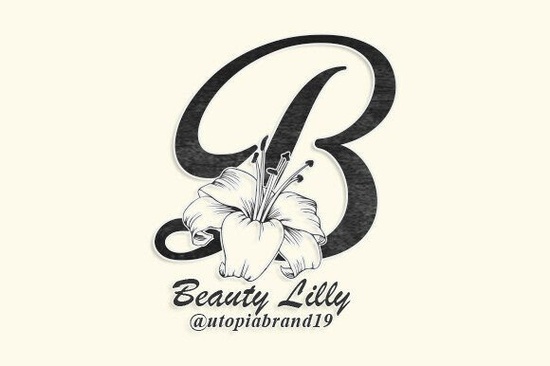
Beauty Lilly Font is a sophisticated script typeface with flowing, hand-drawn letterforms that feel both elegant and organic. It's designed for anyone who needs a typeface that carries a high-end, boutique aesthetic think luxury cosmetics, bridal stationery, and spa branding. If you've been searching for a cursive font that looks genuinely hand-lettered rather than digitally stiff, this one deserves a close look.
What kind of style does Beauty Lilly bring to a design?
Beauty Lilly has what you might call a "luxurious-botanical" personality. The letterforms flow into each other with smooth cursive transitions, and the overall weight is light and airy. It doesn't shout it whispers. That refined quality makes it a natural fit for projects where elegance and restraint matter more than boldness.
Compared to something like a sharp decorative typeface that commands attention through geometric precision, Beauty Lilly works through softness. The organic curves and classic rhythm give it a timeless feel, which is especially useful for brands that want to look established and trustworthy rather than trendy.
Who should consider using this font?
This typeface works well for a specific range of creative professionals and small business owners:
- Cosmetics and skincare brands packaging, labels, and product tags that need a refined, feminine touch
- Jewelry designers especially independent sellers who want boutique-level branding without hiring a custom lettering artist
- Wedding stationery creators invitation suites, RSVP cards, envelope liners, and menu designs
- Luxury spa and wellness businesses social media headers, booking cards, and signage
- Print-on-demand sellers mugs, tote bags, and wall art aimed at an upscale audience
- DIY crafters and hobbyists anyone making personalized gifts or home décor with a polished finish
If you work with monogram-style wedding fonts, Beauty Lilly pairs especially well as a complementary script for names, taglines, or decorative phrases alongside structured monogram initials.
What kinds of projects work best with Beauty Lilly?
Because of its delicate weight and flowing style, this font shines in projects where text is used sparingly and intentionally. It's not ideal for long paragraphs or small body copy it's meant for headlines, logos, short phrases, and display text.
Here are some practical project ideas:
- Logo design for boutique businesses in beauty, fashion, or wellness
- Wedding invitation suites with a romantic, hand-lettered feel
- Social media graphics especially Instagram headers and Pinterest pins for lifestyle brands
- Product packaging for candles, soaps, perfumes, and skincare
- Greeting cards Mother's Day, Valentine's Day, or bridal shower themes
- Website banners and hero text for e-commerce storefronts
For wedding-focused designers, pairing Beauty Lilly with an ornamental monogram typeface can create a full suite that looks cohesive and professionally designed.
How does Beauty Lilly compare to other script fonts?
Not all script fonts serve the same purpose. Some are playful and casual, while others lean formal and traditional. Beauty Lilly sits in a sweet spot it's polished enough for professional branding but still feels warm and approachable.
The key distinction is the letterform weight and spacing. Beauty Lilly's airy, lightweight strokes give it breathing room, which contributes to that luxury feel. Fonts that are too heavy or too tightly spaced can lose that sense of refinement.
Tips for getting the most out of Beauty Lilly
- Use it at larger sizes. The fine details of the letterforms get lost at small point sizes. Keep it for headlines and display text.
- Pair it with a clean sans-serif. A simple geometric sans-serif for body copy creates a nice contrast without competing for attention.
- Mind the spacing. Give the letters room to breathe. Generous letter-spacing and line-height help maintain that elegant, open feel.
- Test it on your actual product. What looks beautiful on screen might need adjustments in print especially on textured paper or curved surfaces like mugs.
Before you start your next project
Here's a quick checklist to make sure Beauty Lilly is the right fit:
- Is your target audience drawn to luxury, elegance, or femininity?
- Will the font be used for short, display-level text rather than long paragraphs?
- Do you have a clean complementary font planned for body copy?